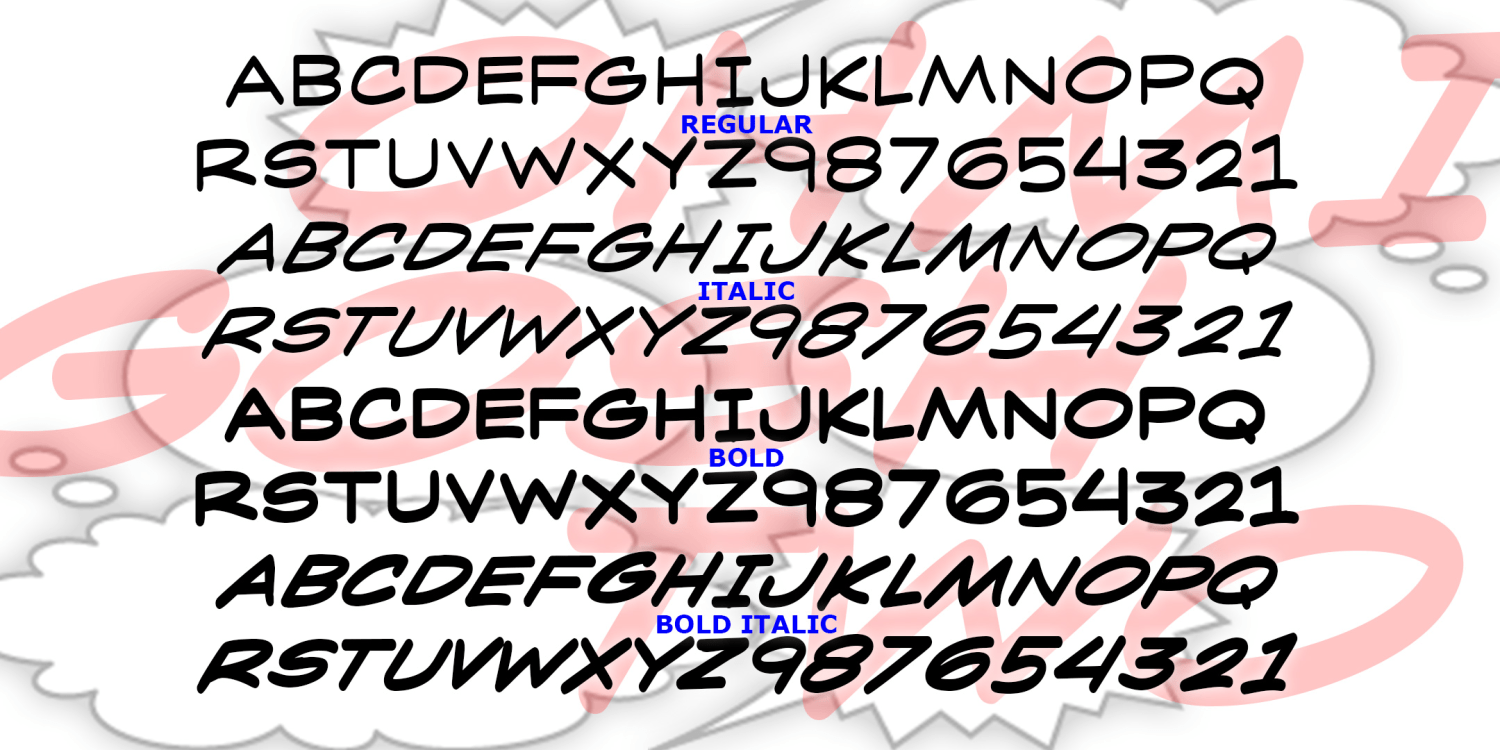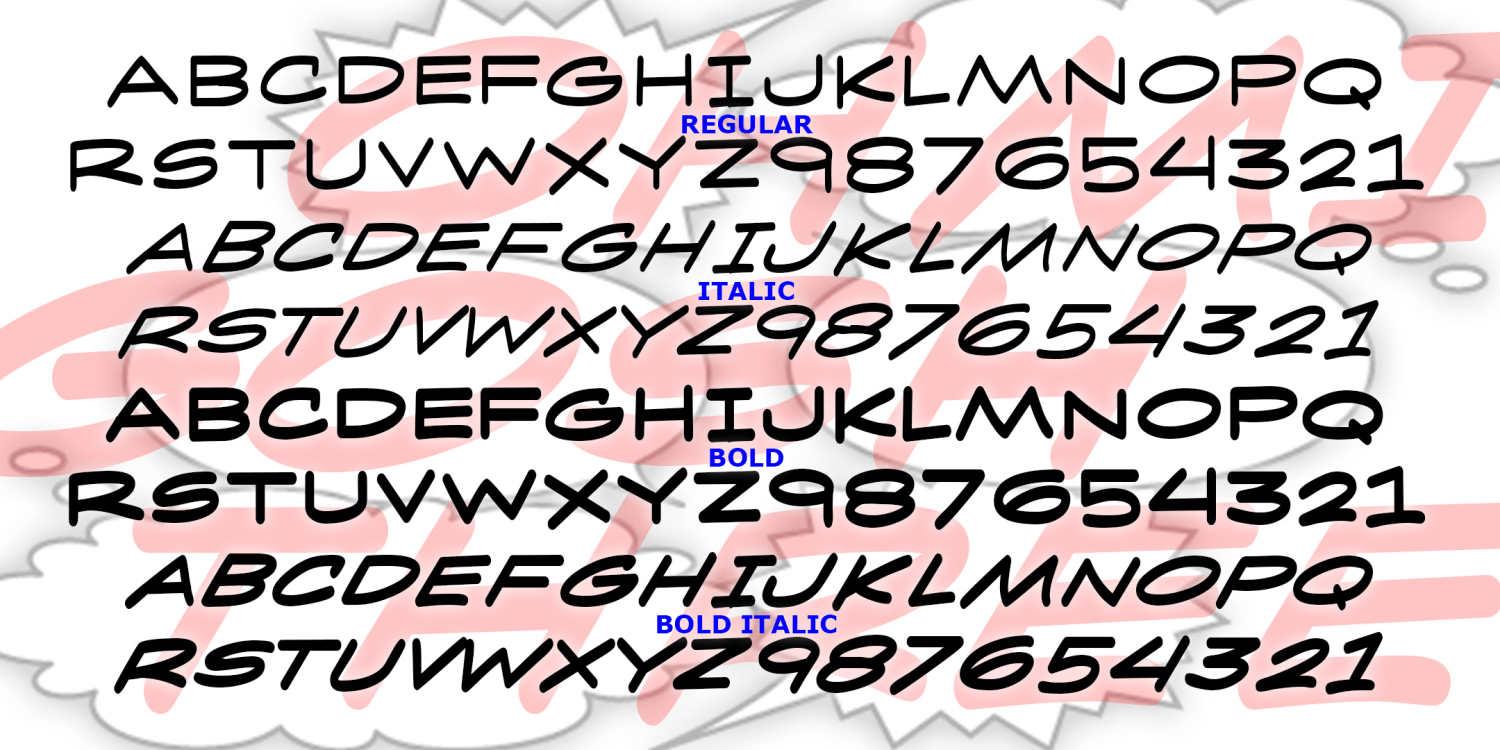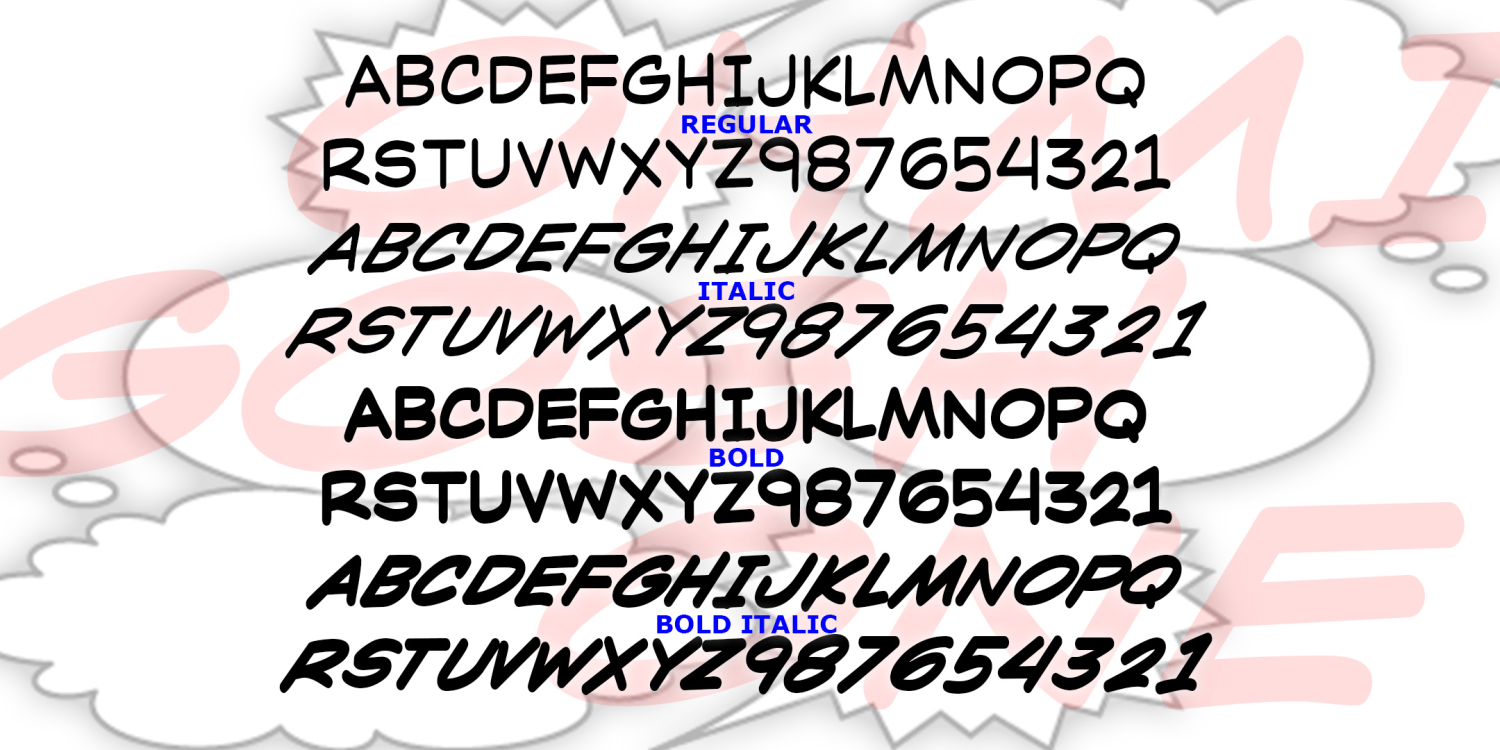
Ohmigosh
OHMIGOSH is a series of 12 fonts inspired by the style of classic comic lettering. There are 3 widths–One is narrow, Two is medium, Three is Wide–each with Regular, Italic, Bold, and Bold Italic. One inspiration was the strip "Gil Thorp,"…